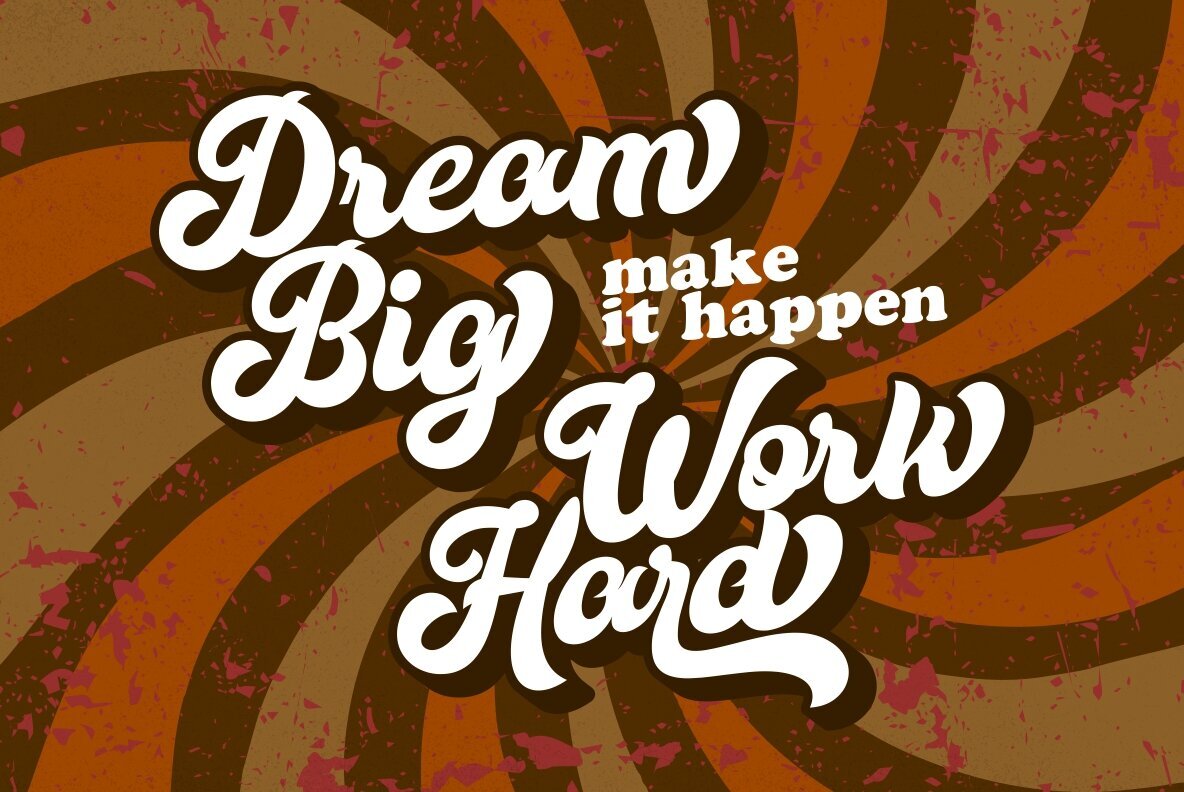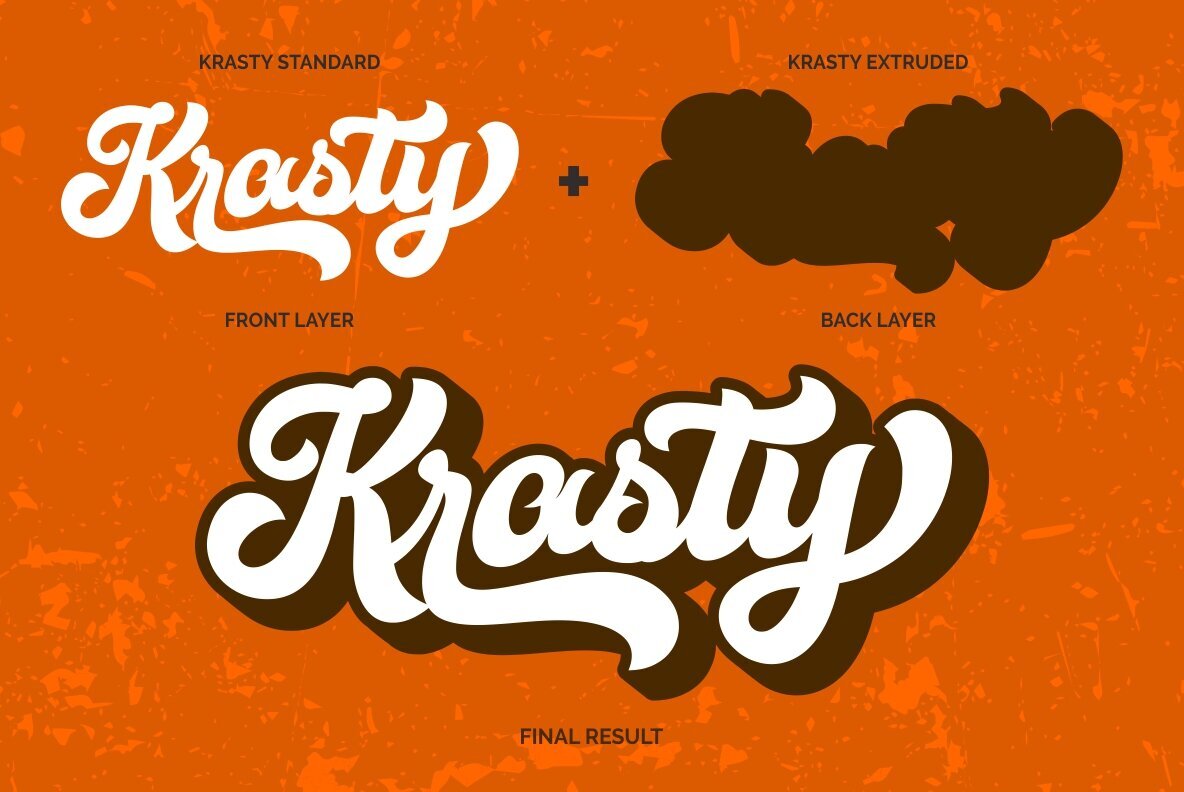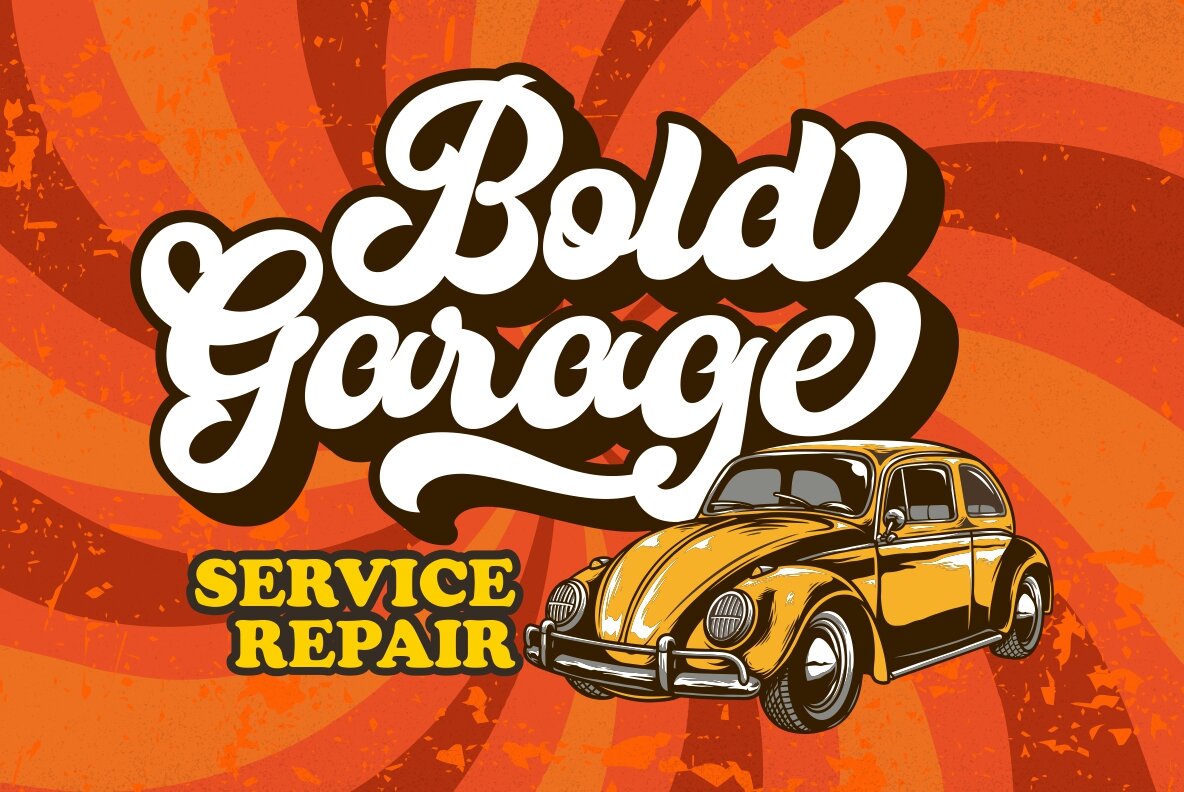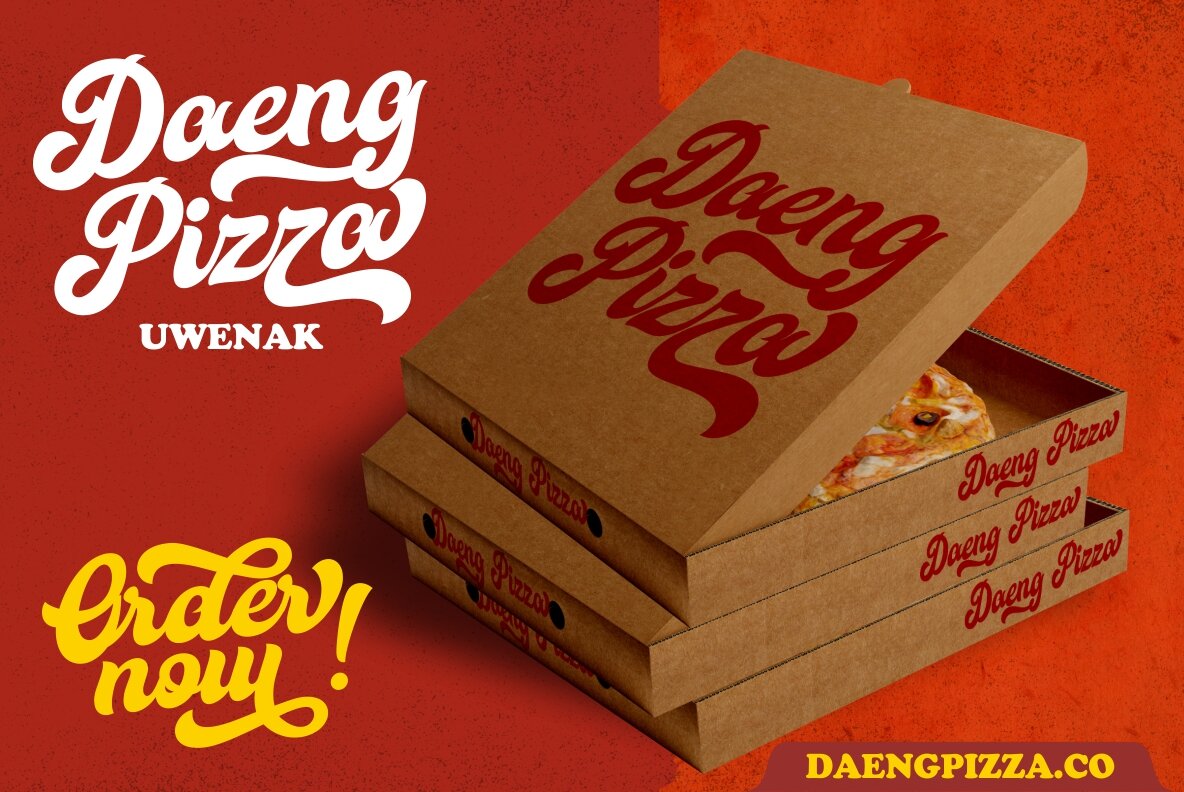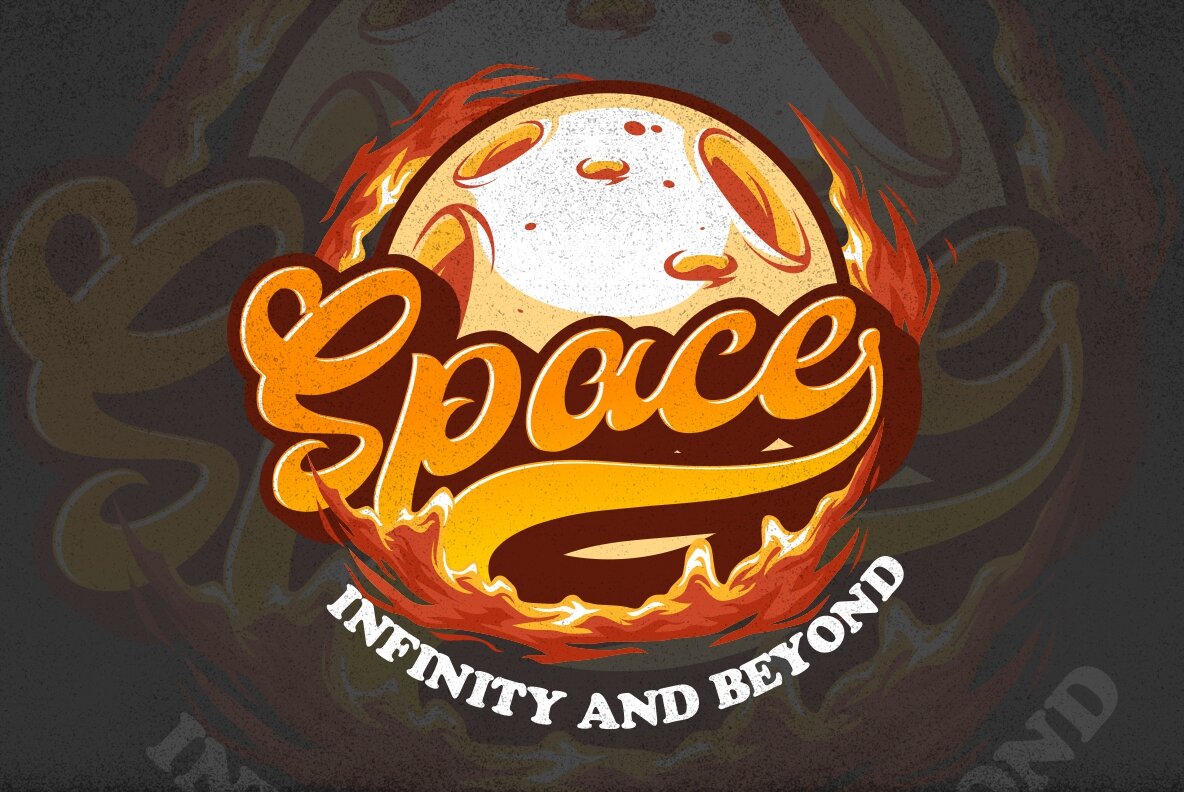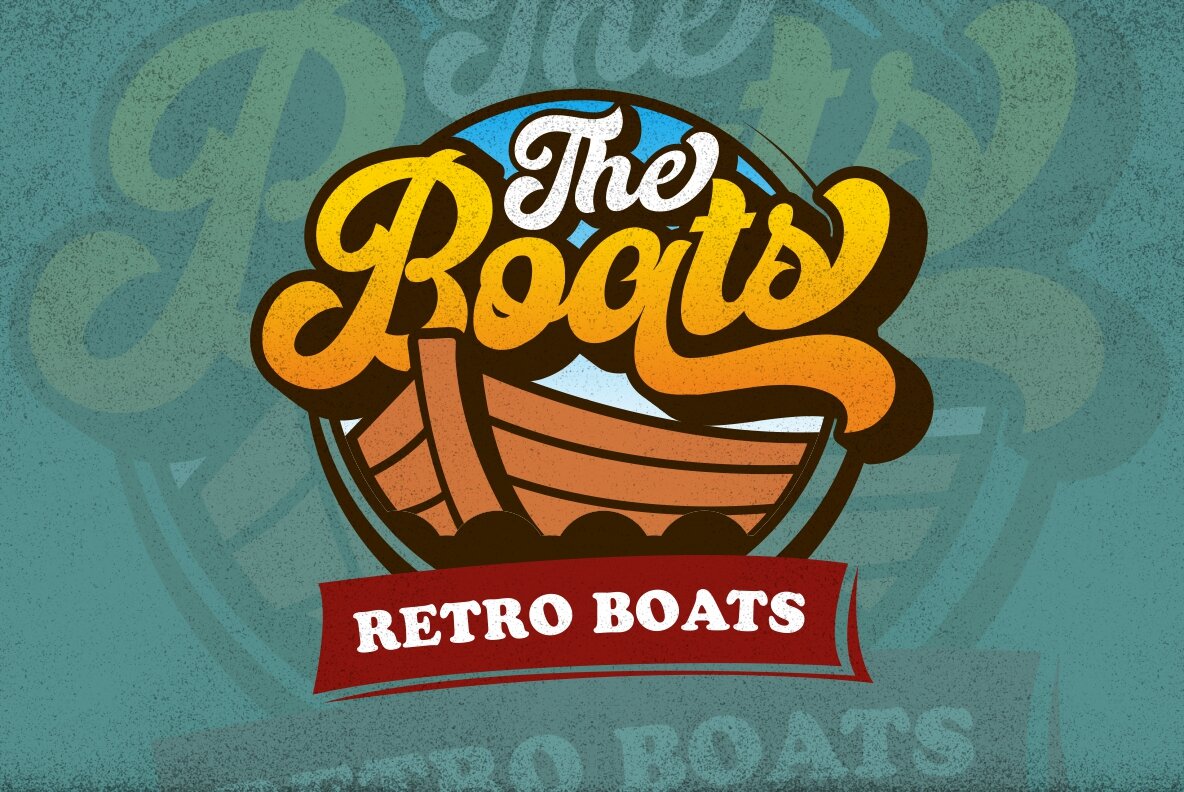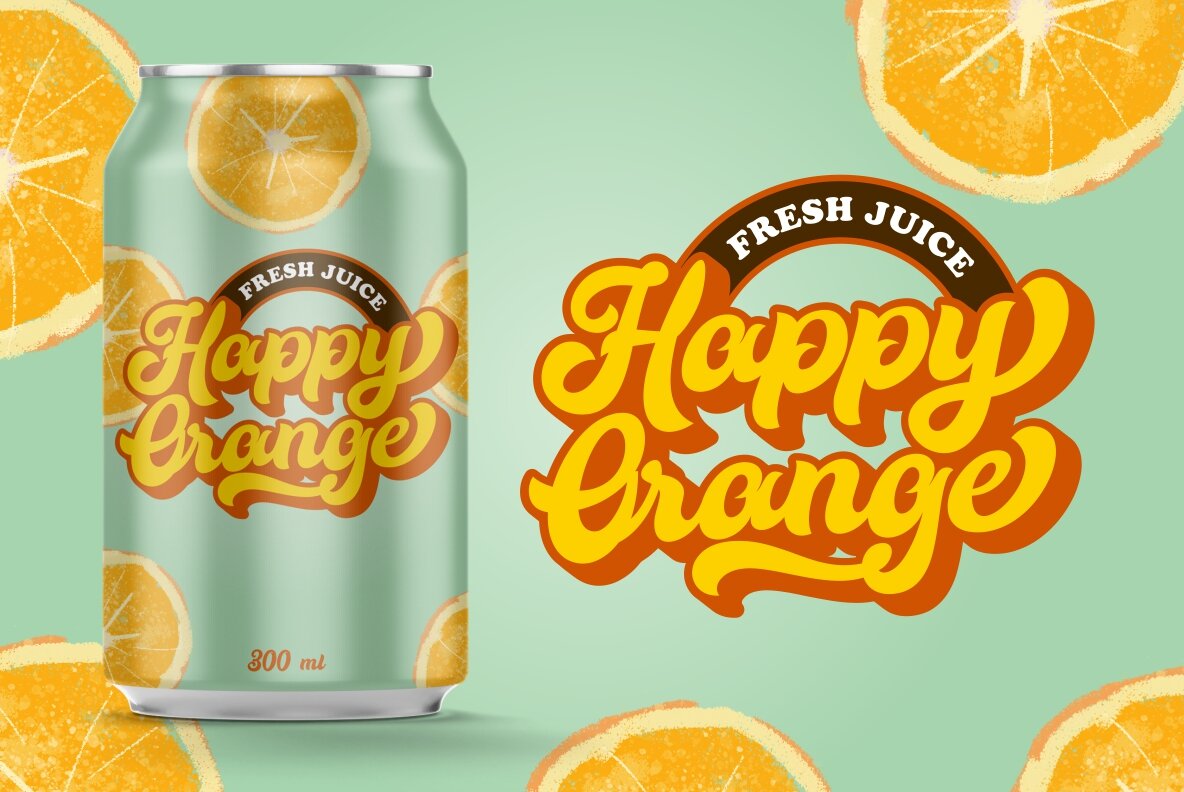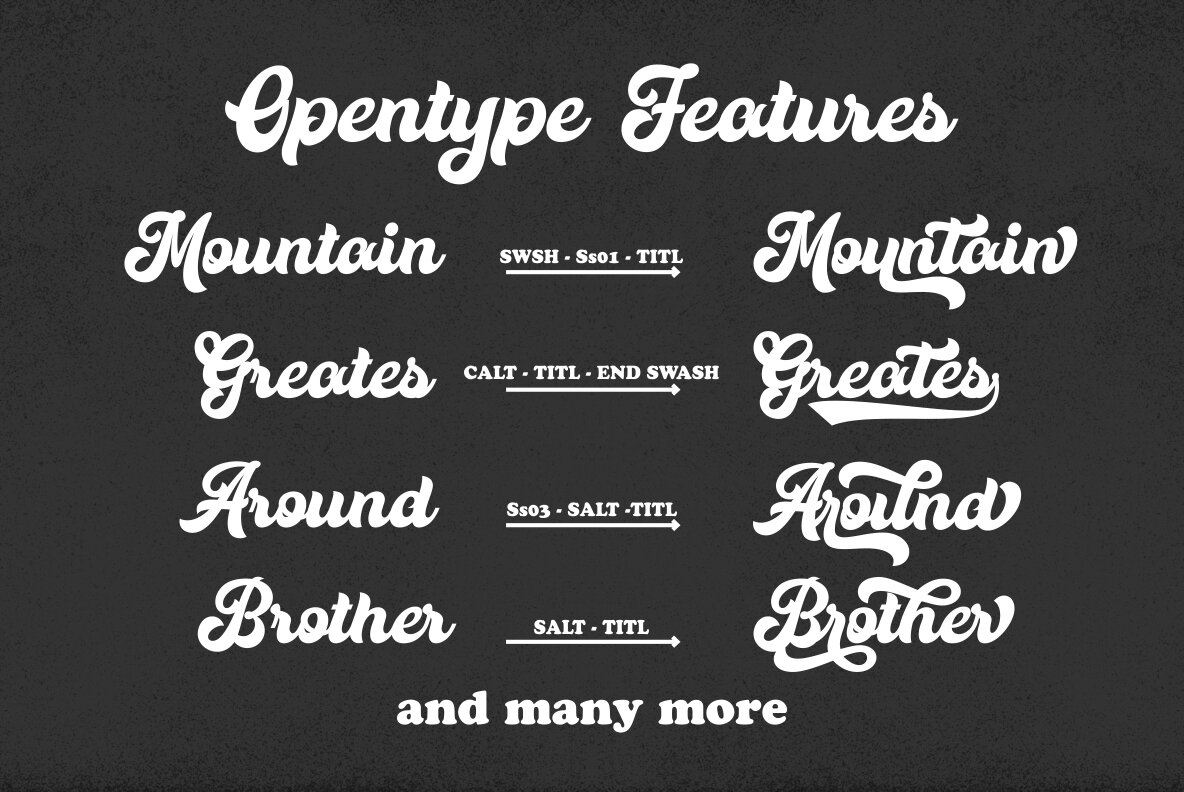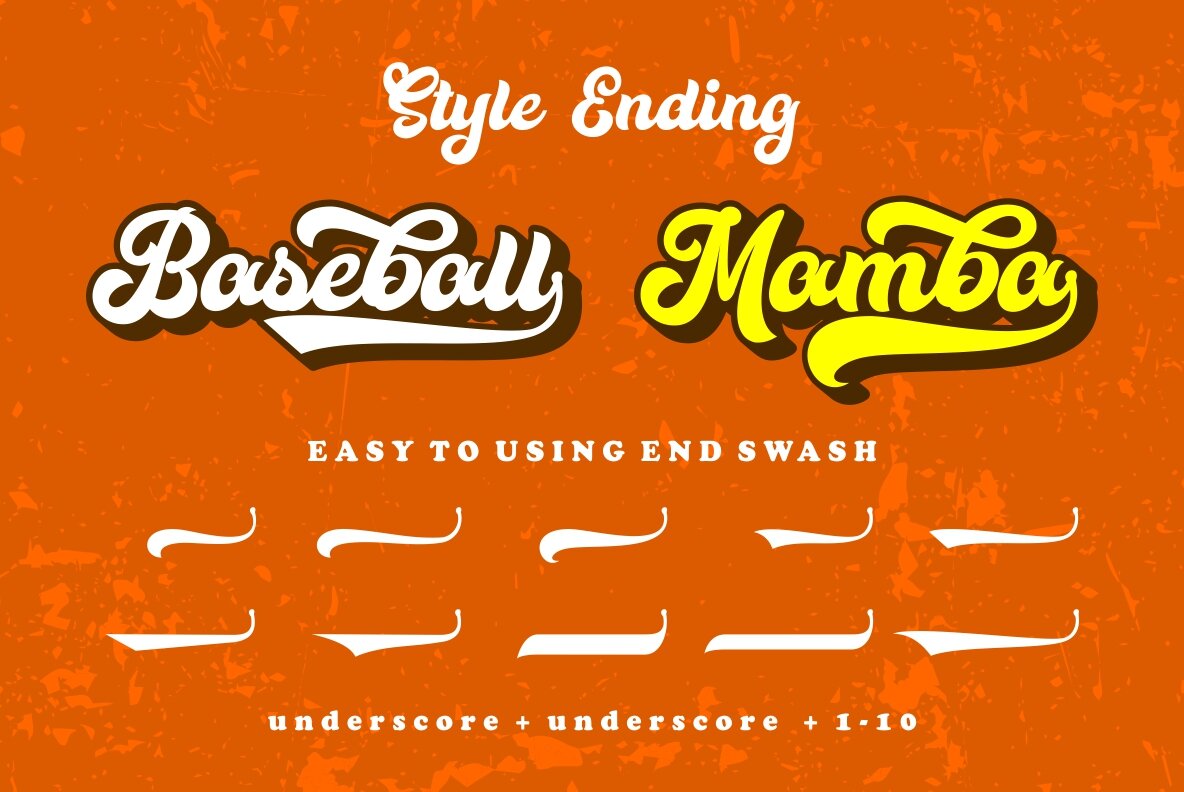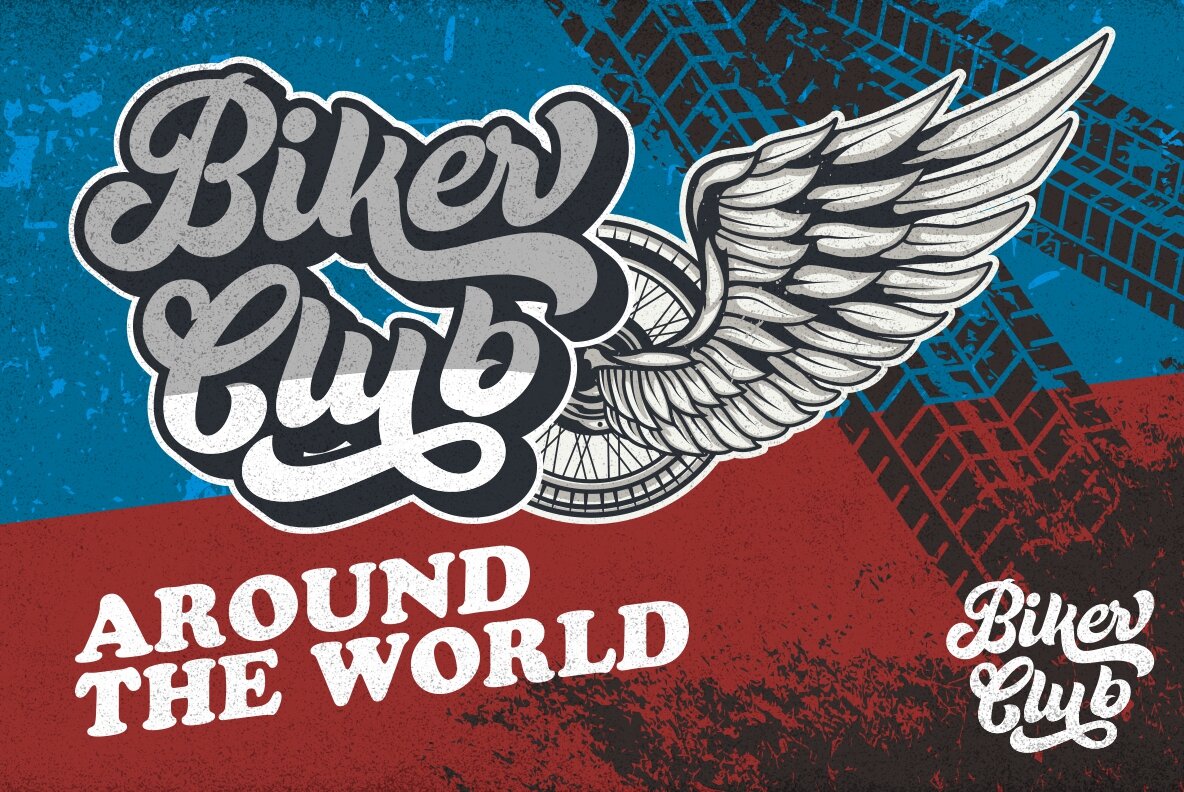
Krasty: Retro Typeface with Extrusion Flair
Krasty brings a unique retro-inspired feel by drawing on classic typography from years past. This versatile typeface includes an extrusion version, making it easy to create distinctive retro effects in your design projects. Perfect for invitations, labels, logos, and more, Krasty offers a nostalgic touch to any composition, enhancing its aesthetic appeal for modern creatives.
• Uppercase and lowercase letters
• Numerals and multilingual support
• Swash on letters for added flair
• Bonus swash elements for perfected retro styles